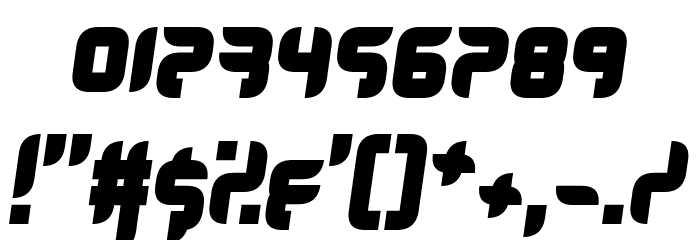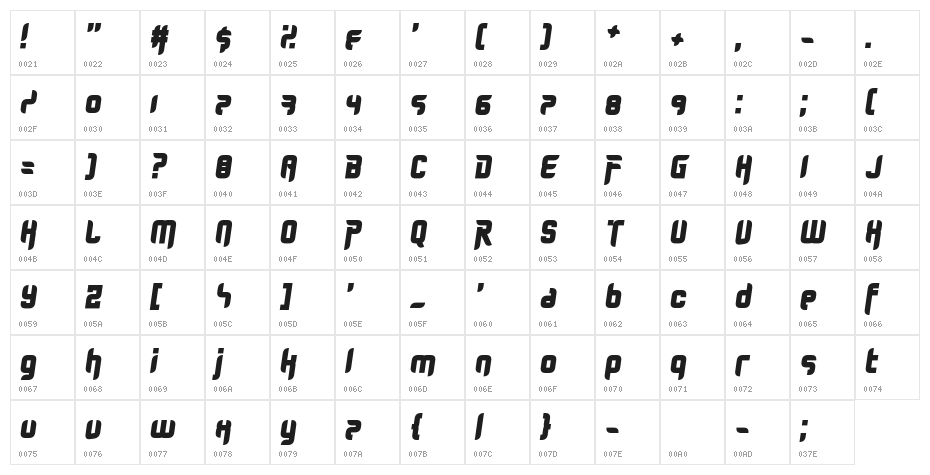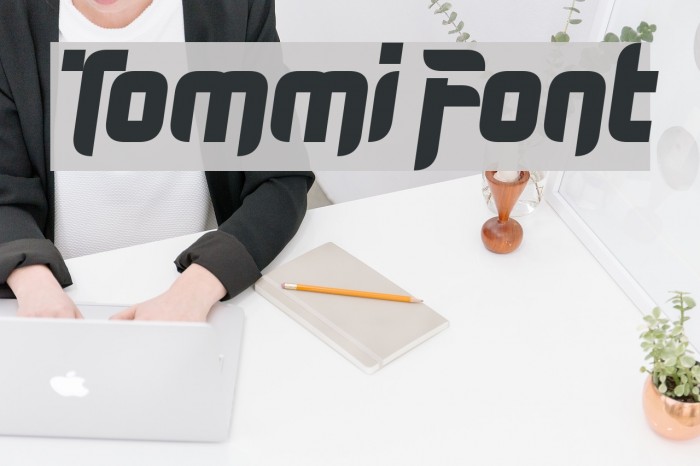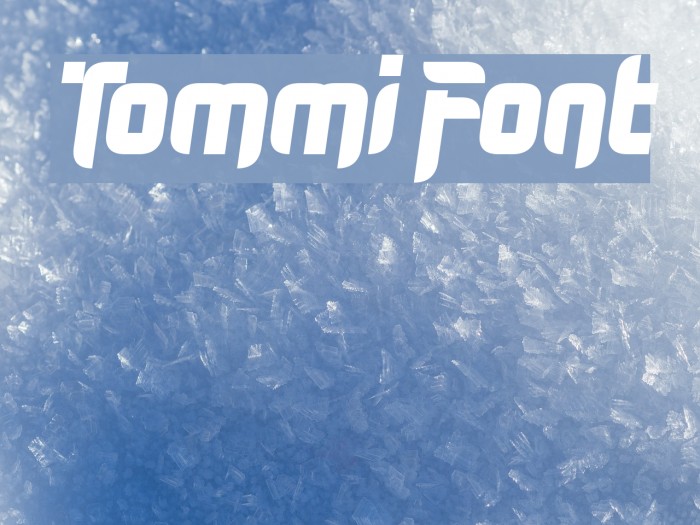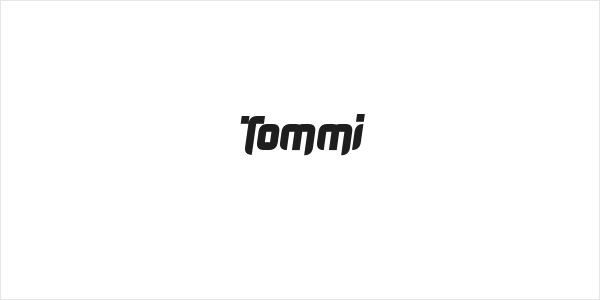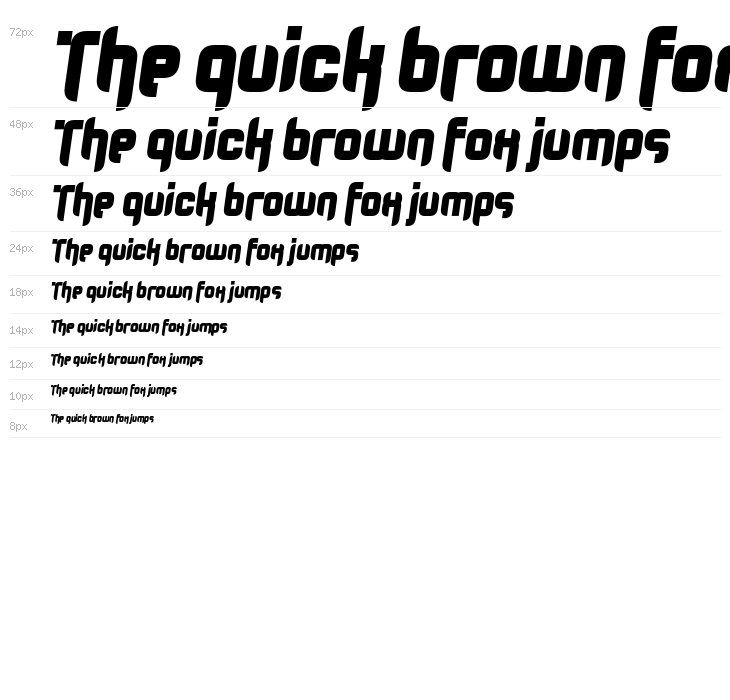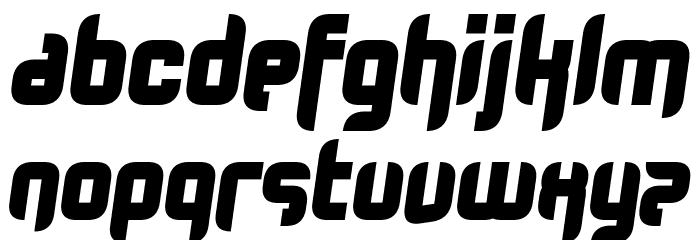
Tommi Font
Tommi Description
This font features a bold, futuristic design with a unique, angular style. The characters are heavily stylized with sharp edges and a forward-leaning slant, giving it a dynamic and energetic appearance. The uppercase and lowercase letters maintain a consistent design language, with the lowercase letters mirroring the uppercase in form but slightly reduced in size. The numerals and special characters follow the same bold and angular aesthetic, ensuring uniformity across all glyphs. The font's thick strokes and geometric shapes make it highly legible, even at smaller sizes, while its distinct style ensures it stands out in any design context.
| Proposed Projects | Ideal for sci-fi themed projects, video game titles, tech branding, and modern posters. |